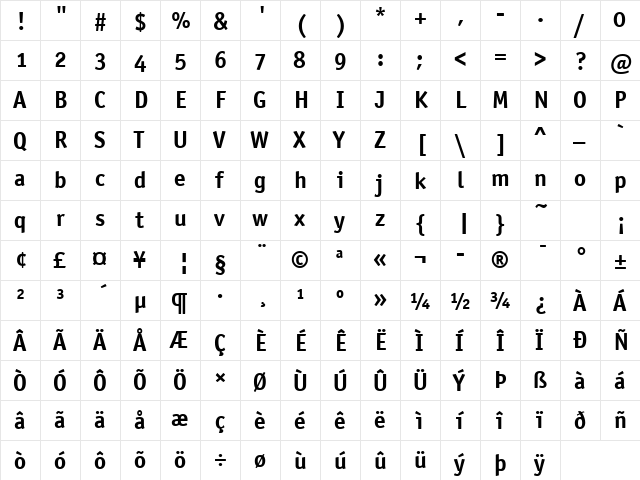
Officina Sans OS ITC TT Bold
Design Context for Officina Sans OS ITC TT Typeface
Officina Sans OS ITC TT offers clean, dependable letterforms without strong stylistic allegiance, making it a practical choice for designers who need flexibility. Its bold stroke weight gives it real presence on the page.